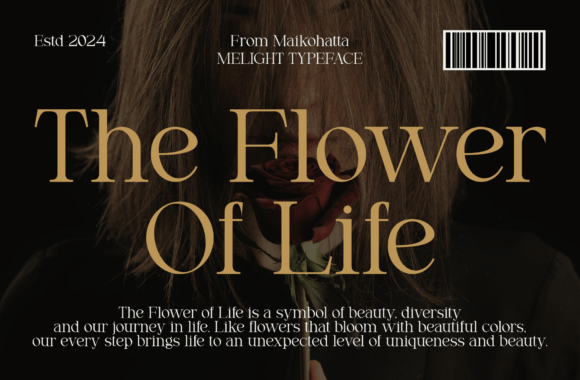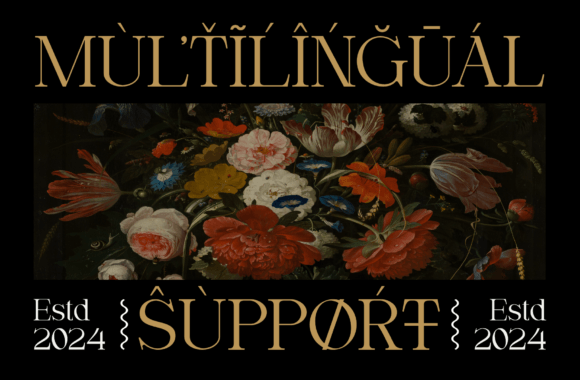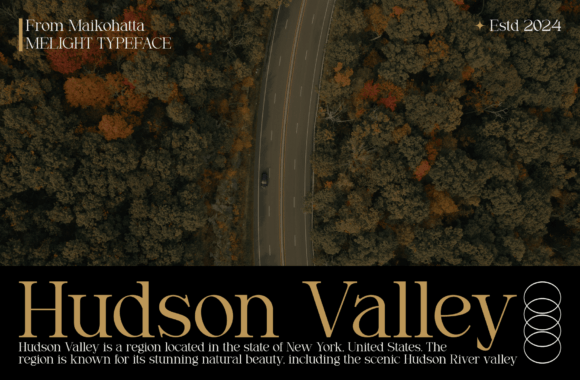
Introduction to Melight Font
Imagine you’re working on a creative project, and the right font can make all the difference. You’ve poured your heart into designing a logo, but something’s missing – that perfect font to tie everything together. This is where the Melight Font comes in, a high-quality serif display typeface that adds a touch of sophistication to any design.
As a designer, you know how important it is to have a versatile design resource that can elevate your work. The Melight Font delivers, with its balanced proportion of stroke thickness and fineness creating attractive and easy-to-read visuals. Whether you’re working on a free download or a commercial project, this modern serif style is sure to impress with its understated yet striking presence, perfect for a transparent background or a bold statement.
Key Features of Melight Font
- High-quality, elegant design suitable for creative projects and presentations
- Transparent background for seamless integration with any design or image
- Unique, handcrafted design elements that set it apart from other fonts and add a touch of sophistication to any project
Honest Review: Melight Font
I recently had the opportunity to work with the Melight Font, and I must say it’s been a great addition to my design arsenal. The font is high quality, making it perfect for any creative project that requires a touch of elegance and sophistication.
- ✨ The font’s clean and minimalist design makes it easy to read and understand, even at small font sizes.
- ✨ The transparent background option is a great feature, allowing designers to easily layer the font over images and other design elements.
However, I did encounter a few limitations during my testing.
- ⚠️ The font is not ideal for projects that require bold, attention-grabbing typography. It’s better suited for more subtle, understated designs.
- ⚠️ The font’s minimalist design may not be suitable for projects that require a lot of customizability or flexibility.
Overall, I’m impressed with the Melight Font. It’s a solid addition to any designer’s toolkit, and its high quality and transparent background options make it a valuable resource for any creative project.
Tips for Getting the Most Out of Melight Font
Use Melight Font in combination with other design elements to create a cohesive and visually appealing design. Experiment with different font sizes, colors, and styles to find the perfect combination for your creative project. You can also use Melight Font as a design resource for custom graphics and illustrations.
Melight Font is a versatile font that can be used in a variety of design projects, including presentations, documents, social media graphics, and more. Its high-quality design and transparent background make it a popular choice for designers and creatives. With a free download option, you can access Melight Font and start using it in your next creative project today.